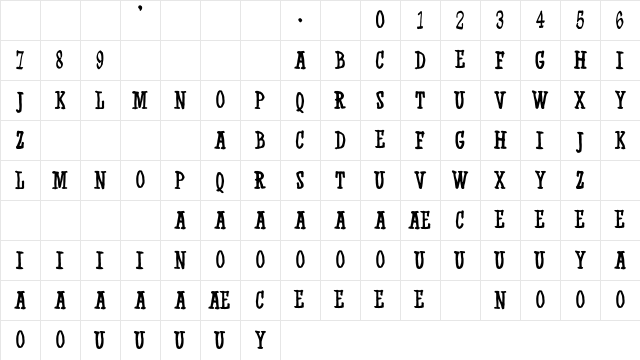
Western Swagger Regular
Foundry: Kevin Christopher
Designer: Kevin Christopher
Design Context for Western Swagger
Western Swagger echoes the hand-painted signage and woodblock typography of the American frontier, with a warm, rugged personality.
Font Pairing: Combine Western Swagger with a simple slab or neutral sans - period-accurate companions reinforce the vintage feel without competing for attention.
Pro Tip: Use Western Swagger for short, impactful bursts of text - it shines in poster headlines and product names rather than extended copy.